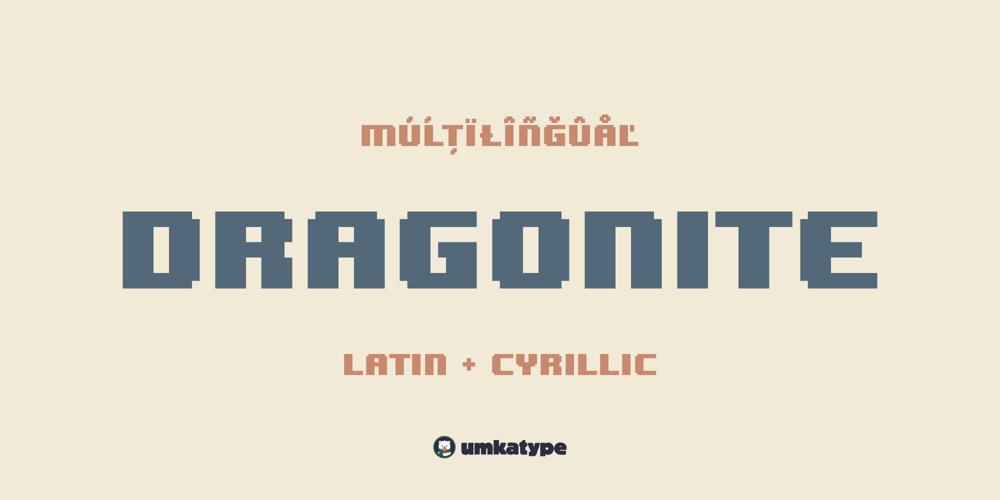
Dragonite
Dragonite font
Dragonite Font Family was designed by Alper Çakıcı and published by Umka Type. Dragonite contains 1 styles and family package options. Dragonite is a modern, versatile pixel font with excellent kerning, making it ideal for both digital and print use. It features full support for the Cyrillic language, allowing for seamless multilingual communication. Dragonite’s unique design combines classic proportions with a contemporary feel, making it stand out from other same categories fonts.It supports 91 Languages: Belarusian, Russian, Afrikaans, Albanian, Asu, Basque, Bemba, Bena, Breton, Catalan, Chiga, Colognian, Cornish, Croatian, Czech, Danish, Dutch, Embu, English, Esperanto, Estonian, Faroese, Filipino, Finnish, French, Friulian, Galician, German, Gusii, Hungarian, Indonesian, Irish, Italian, Kabuverdianu, Kalenjin, Kamba, Kikuyu, Kinyarwanda, Latvian, Lithuanian, Lower Sorbian, Luo, Luxembourgish, Luyia, Machame, Makhuwa-Meetto, Makonde, Malagasy, Maltese, Manx, Meru, Morisyen, North Ndebele, Norwegian Bokmål, Norwegian Nynorsk, Nyankole, Oromo, Polish, Portuguese, Quechua, Romanian, Romansh, Rombo, Rundi, Rwa, Samburu, Sango, Sangu, Scottish Gaelic, Sena, Serbian, Shambala, Shona, Slovak, Soga, Somali, Spanish, Swahili, Swedish, Swiss German, Taita, Teso, Turkish, Upper Sorbian, Uzbek (Latin), Volapük, Vunjo, Walser, Welsh, Western Frisian, Zulu–Uppercase